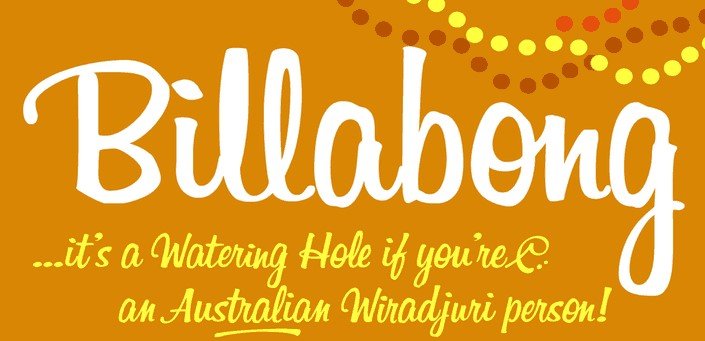
Billabong Font is an awesome display typeface created by Russell Bean and released by the font foundry Type Associates. One interesting feature of this typeface is its attractive brush appearance, despite being a display typeface.
This is a big font family that comes with different weights that are bold, italic, bold italic, and regular and all of these works great with cula font and these also have vast language support and different open-type functions that it can be found in both adobe and google font library.
Thi typeface gains so much popularity in no time the basic reason for this is that the attractive glimpses of this font and its usage inside the Instagram logo and also for its copy and paste function.
Billabong is the display typeface that was created by Russell Bean and it is released for the first time by type associate.
The Lobster Font is very close to the Billabong font.